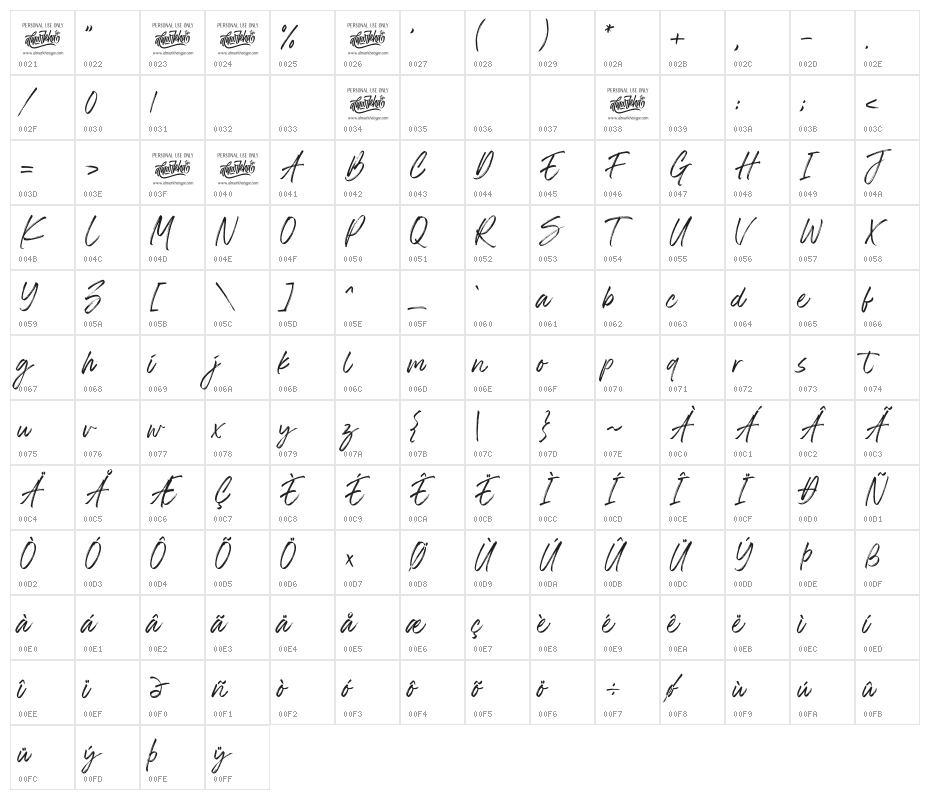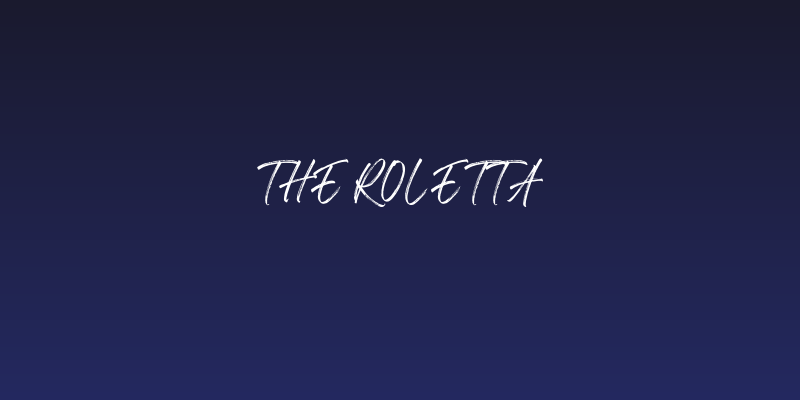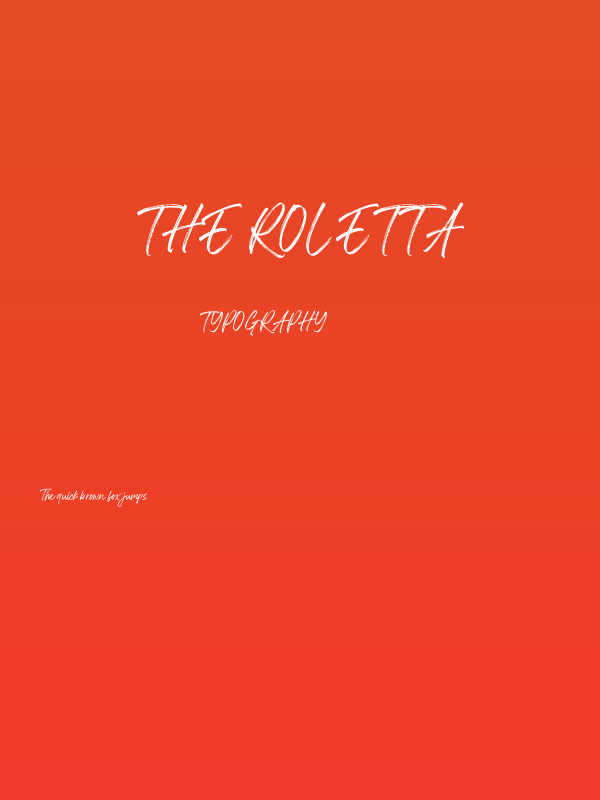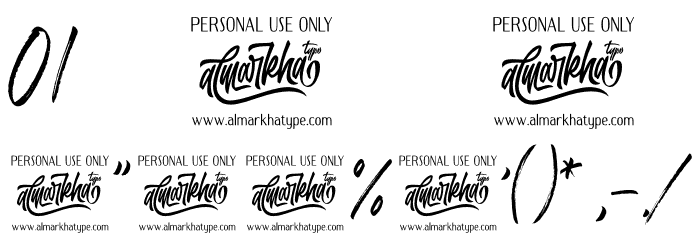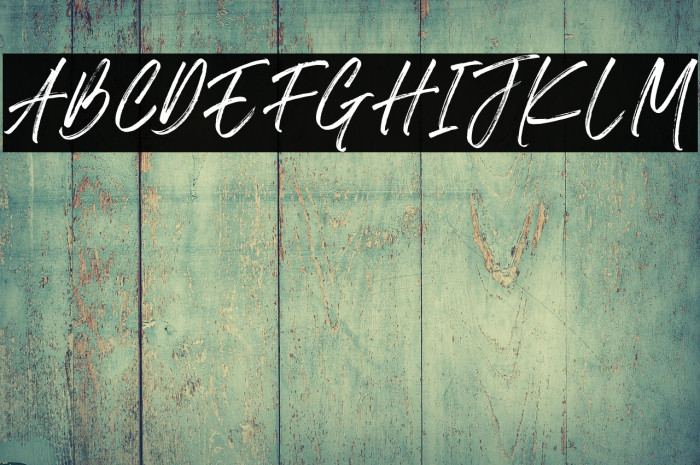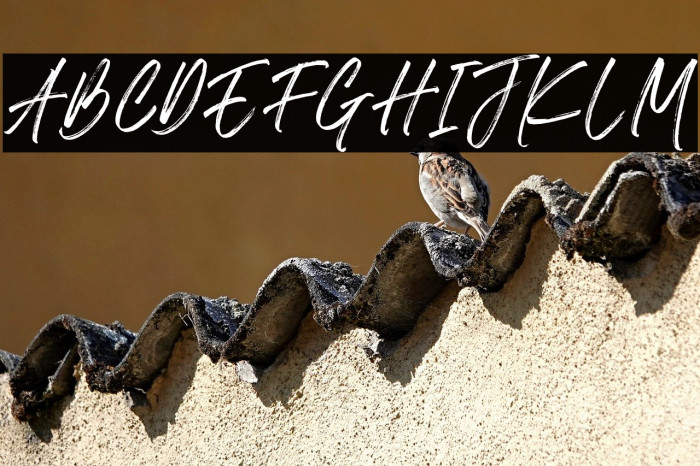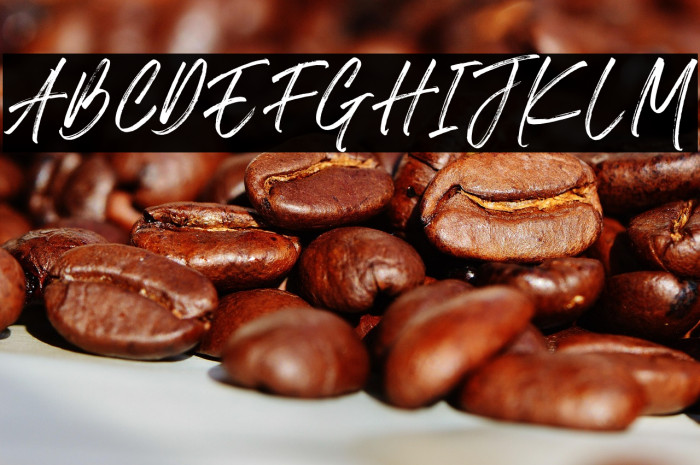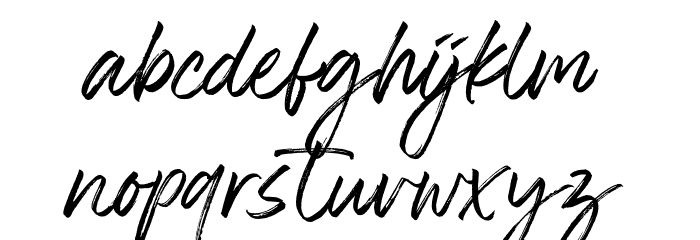
The Roletta Font
The Roletta Description
This font exhibits a dynamic and expressive handwritten style, characterized by its fluid and cursive strokes. The uppercase letters are bold and sweeping, while the lowercase letters maintain a consistent flow with a slightly more restrained appearance. The numerals and special characters are crafted with the same energetic flair, adding to the overall cohesive look. The font's brush-like texture gives it a natural and artistic feel, making it suitable for projects that require a personal touch. Its unique style is both modern and timeless, offering versatility in various design contexts.
| Proposed Projects | Ideal for branding, invitations, greeting cards, and artistic projects that require a personal and creative touch. |